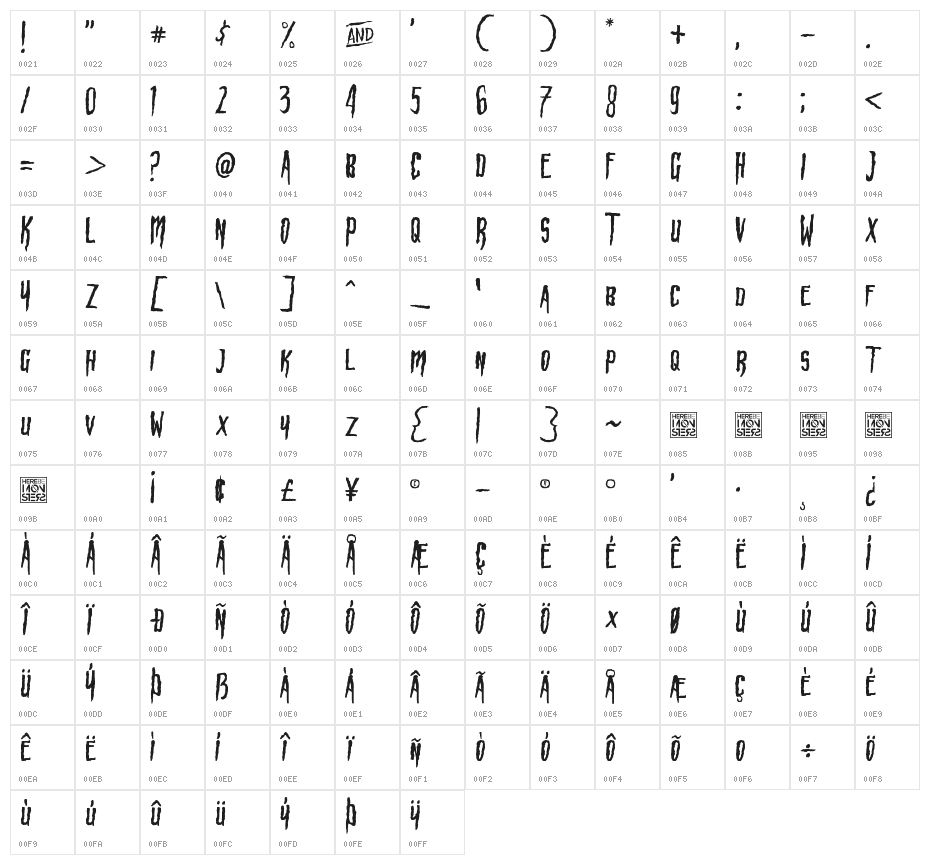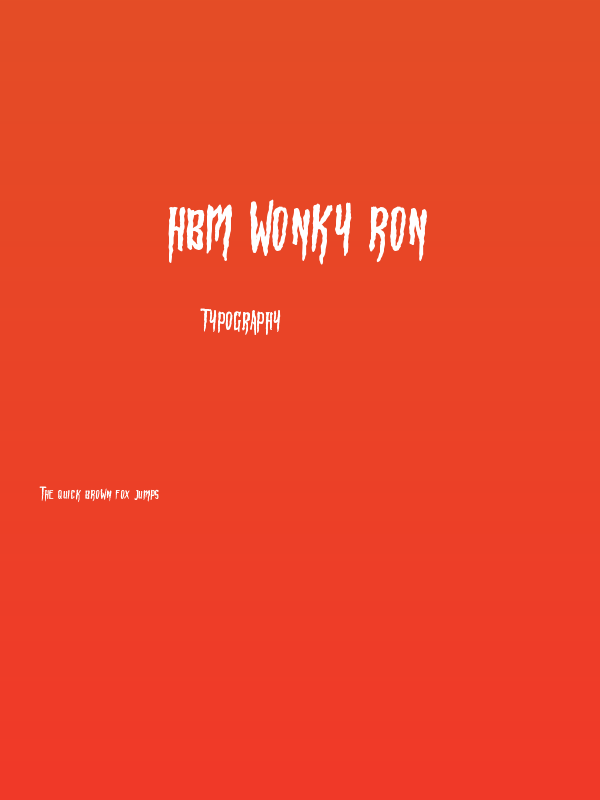
HBM Wonky Ron Font
HBM Wonky Ron Description
This font features a distinctive, irregular style with a hand-drawn appearance. The characters have a jagged, uneven quality, giving them a playful and quirky look. The uppercase and lowercase letters maintain a consistent height, while the numbers and special characters follow the same whimsical design. The strokes are uneven, with varying thicknesses that add to the font's unique character. This font is ideal for projects that require a fun, informal touch, such as children's book covers, playful posters, or creative branding materials.
| Proposed Projects | Children's books, playful posters, creative branding, informal invitations. |